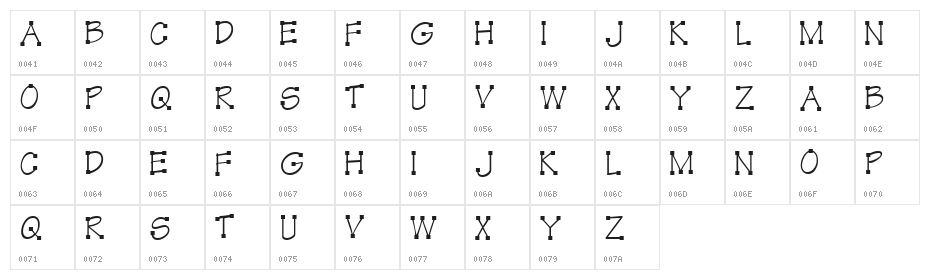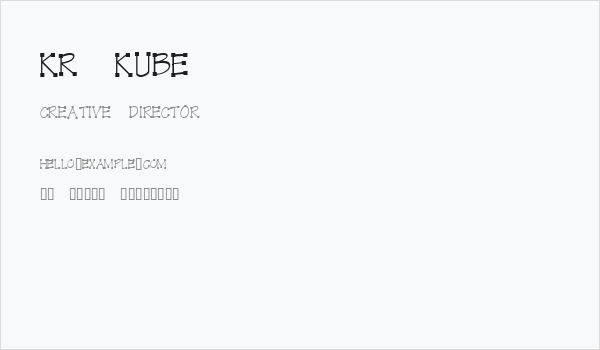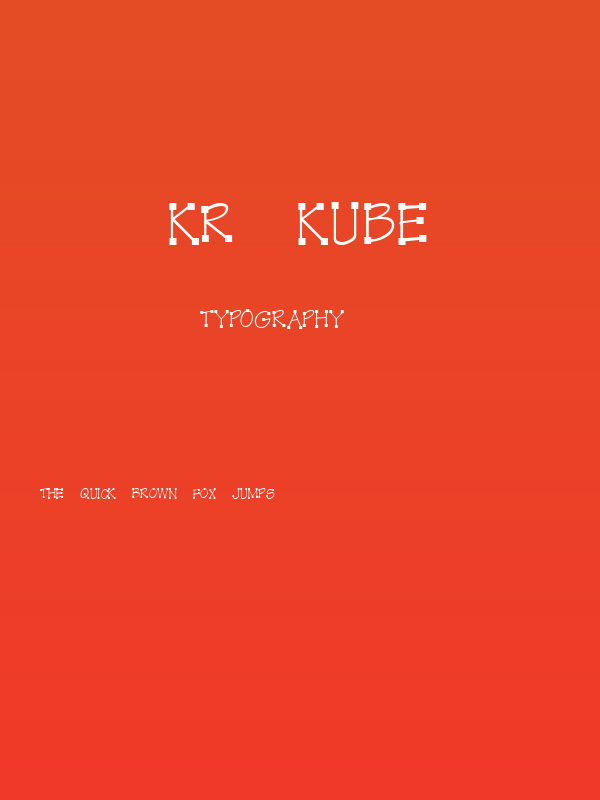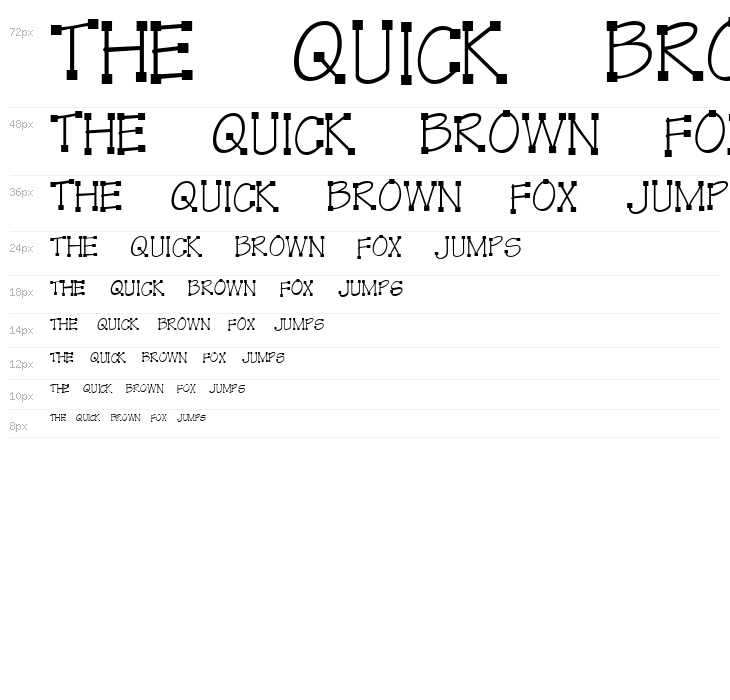
KR Kube Font
KR Kube Description
This font features a unique blend of geometric and playful elements, characterized by its square-shaped serifs and slightly curved strokes. The uppercase letters exhibit a consistent height and width, creating a balanced and structured appearance. The lowercase letters maintain the same geometric style, with a slightly more playful and informal touch. The numerals are bold and clear, ensuring legibility. Special characters are designed to match the overall aesthetic, making them suitable for various design contexts. The font's distinct style makes it ideal for creative projects that require a modern yet whimsical touch.
| Proposed Projects | Ideal for branding, posters, and creative digital designs. |